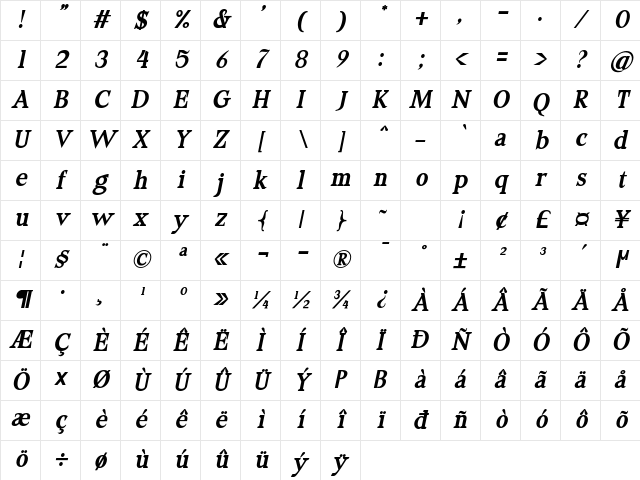
Complete Mouvere' Bold Italic glyph index. Displaying only characters natively supported by Mouvere' Bold Italic font.
Mouvere' is a composed and adaptable typeface that performs quietly and consistently across a wide range of design contexts. The slanted form adds forward momentum and visual energy. Its bold stroke weight gives it real presence on the page.
Pro Tip: Use Mouvere' for emphasis, pull quotes, and subheadings where its slanted energy can add rhythm to the layout.